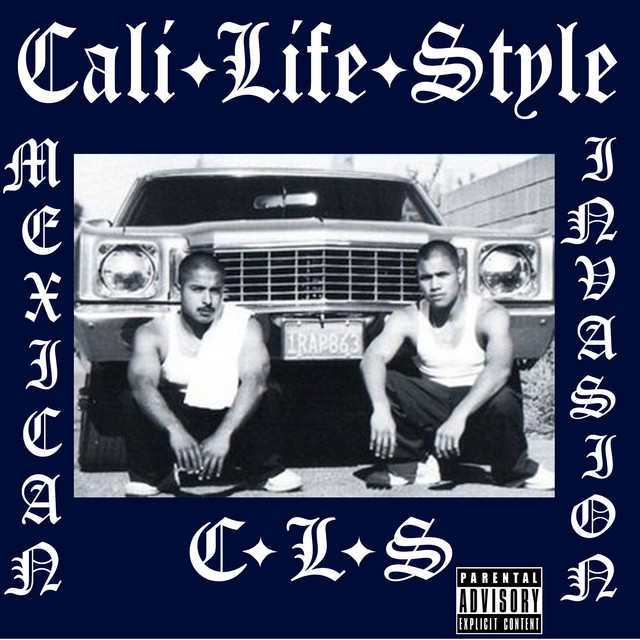
Cali Life Style Font
Fonts in UseMexican Invasion is the debut album by Cali Life Style released in 1996, featuring songs that highlight the struggles and experiences of the Mexican-American community living in California.
The lettering on the album art bears a resemblance to Monotype's Old English Text, a blackletter font. For those seeking a free alternative to Old English MT, Dieter Steffmann's Old English Five is a viable option that can be downloaded from the Fonts Used Section.